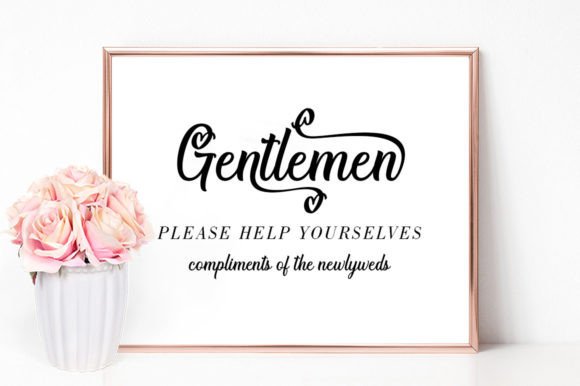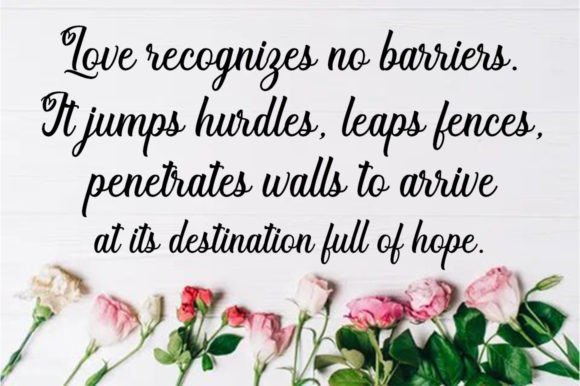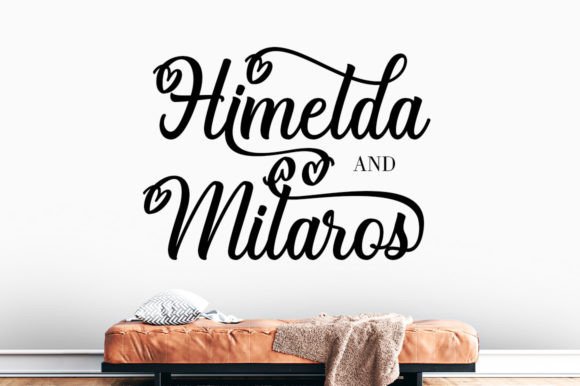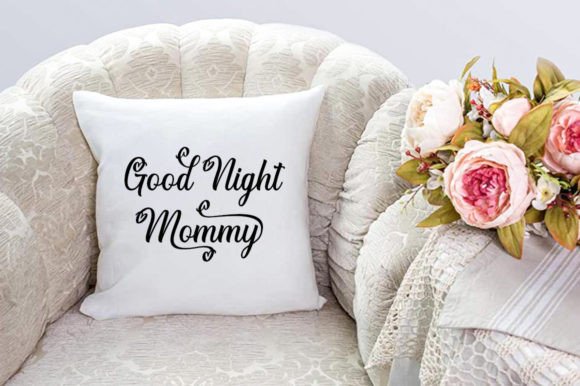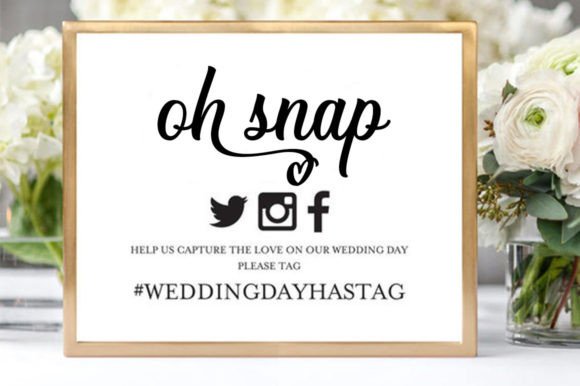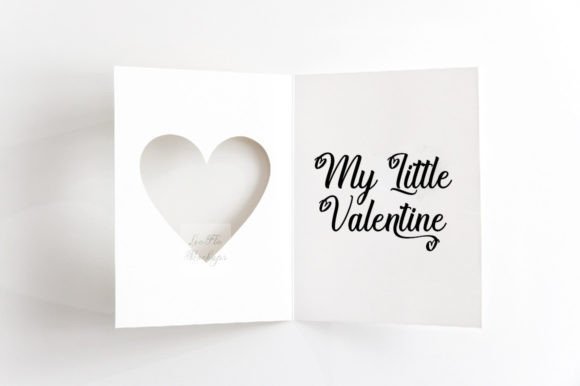
The Amellya Font: A Sweet Addition to Your Design Toolbox
I’ll never forget the time I was working on a wedding invitation project, and my client asked for a font that was ” elegant, yet playful” and “totally unique.” I scoured the internet, tried out dozens of fonts, but nothing seemed quite right. That was until I stumbled upon the Amellya font. It was love at first sight! 💕
Amellya is an adorable handwritten script font that has become a staple in my design toolbox. It looks stunning on wedding invitations, thank you cards, quotes, greeting cards, logos, business cards, and every other design that needs a handwritten touch.
An Honest Review of Amellya Font
What I Love About Amellya Font ✨
- 💖 Adorable handwritten script that adds a personal touch to any design
- 🎉 Extensive character set, including glyphs and stylistic alternates
- 👍 Works beautifully on both digital and print materials
- ⚠️ Some letters may require manual kerning for optimal spacing
- 🤔 Limited suitability for body text, best used for headlines or titles
- Experiment with OpenType features, such as glyphs and stylistic alternates, to add visual interest to your design
The Story Behind Amellya Font
Amellya font was designed by a talented type designer who wanted to create a font that captured the warmth and personality of handwritten script. The designer drew inspiration from classic script fonts, but with a modern twist. The result is a font that’s both elegant and playful, perfect for a wide range of design projects.
| What is Amellya font best used for? | Amellya font is best used for designs that need a handwritten touch, such as wedding invitations, thank you cards, quotes, greeting cards, logos, and business cards. |
| Is Amellya font suitable for body text? | No, Amellya font is best used for headlines or titles. It’s not recommended for body text due to its script nature. |
| Is Amellya font available in different languages? | Amellya font may not support all languages, but it does include a range of glyphs and stylistic alternates to help you create unique designs. |